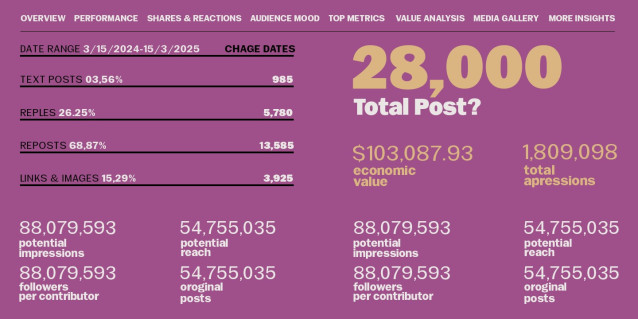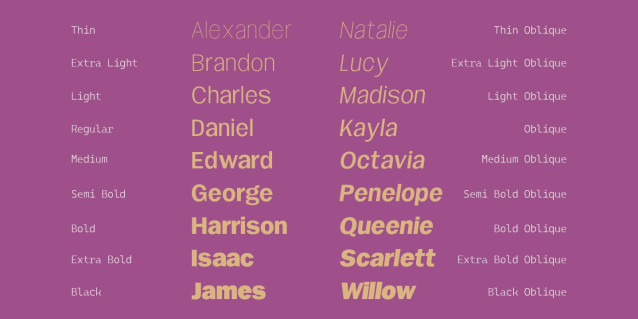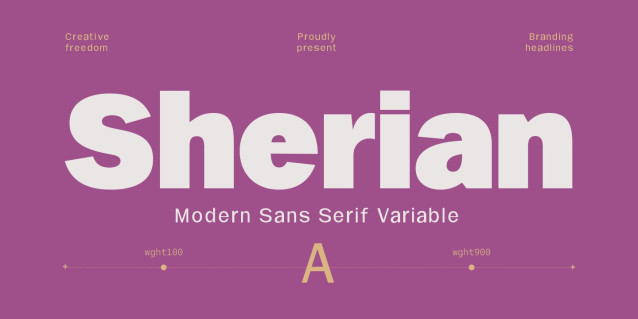
Sherian Font
Sherian Font — a versatile modern sans-serif variable font that gives you full creative control. From sleek thin weights for elegant branding to bold, attention-grabbing headlines, Sherian adapts seamlessly with smooth weight transitions (wght100–900) and even includes oblique styles. Its balanced x‑height and modular baseline boost readability, making it ideal for everything from editorial layouts and data-rich graphics to refined UI and outdoor-themed storytelling. Stylish, functional, and beautifully flexible — Sherian brings clarity and character to your design.